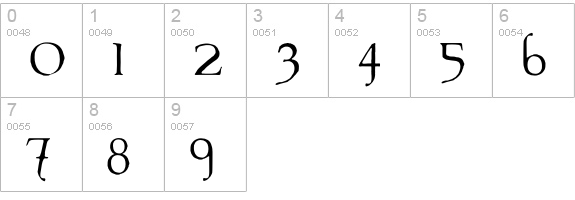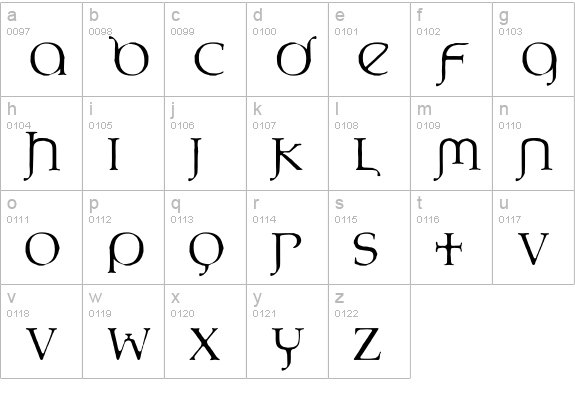
Eremaeus Font Details
Eremaeus font is a visually stunning typeface that exudes elegance and sophistication. With its clean lines and modern aesthetic, Eremaeus is perfect for a wide range of design projects, from branding to editorial design. This versatile font features a unique blend of classic and contemporary elements, making it suitable for both print and digital applications. What sets Eremaeus font apart is not only its timeless design but also the fact that it is available for free. That's right, you can easily download this exceptional font at FontsMarket.com without any cost. Whether you're a graphic designer, artist, or hobbyist looking to enhance your projects with a touch of refinement, Eremaeus font is the perfect choice. Upgrade your design game today with this exquisite font that combines style and accessibility seamlessly.